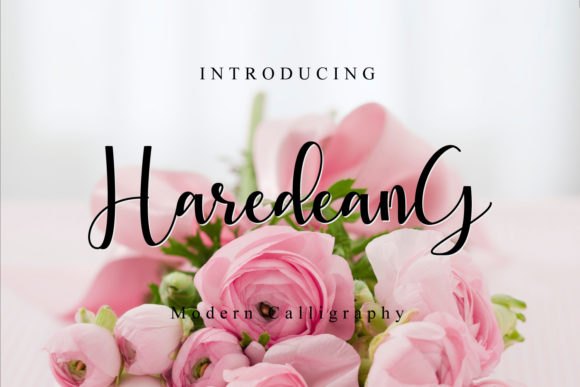
Introducing Haredeang Script, an exquisitely crafted font family that will ignite your creativity and transform your designs. Inspired by the timeless beauty of calligraphy, this stunning script exudes both charm and elegance.
Step into a world where letters dance with grace and fluidity. Haredeang Script's authentic feel will captivate your audience, leaving an unforgettable impression. Unleash your imagination and adorn your creations with a touch of sophistication.
Picture this: wedding invitations that whisper romance, stationary art that speaks volumes, social media posts that turn heads, and greeting cards that warm hearts. Haredeang Script empowers you to express yourself with unparalleled style and flair.
Immerse yourself in the world of T-shirt making with Haredeang Script. Its captivating curves and enchanting strokes will elevate your designs to new heights. Create T-shirts that stand out from the crowd, with a unique blend of timeless elegance and contemporary charm.
With Haredeang Script, the possibilities are limitless. Let your creativity soar and witness the transformative power of this exquisite font family. Embrace the beauty of calligraphy and make your designs shine with an unforgettable touch of grace and sophistication.